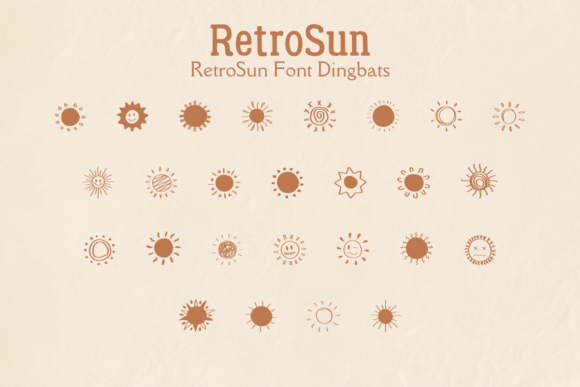
Introducing the dazzling Retro Sun Font, a symphony of nostalgic charm and playful whimsy! This captivating dingbat font will illuminate your creations with its radiant presence. With its playful glyphs, Retro Sun conjures memories of sun-drenched summer days, evoking a sense of joy and adventure.
Crafted by the skilled hand of Sakti Avellin, Retro Sun is a font that speaks to the heart. Its upper and lowercase glyphs dance and twirl, inviting you to add a touch of magic to your designs. Its versatility knows no bounds, making it the perfect companion for decorative accents, children's books, eye-catching stickers, and enchanting book covers.
Picture your words adorned with the golden warmth and playful spirit of Retro Sun. Its radiant glow will captivate readers, drawing them into your captivating tales. Whether you're designing a website, crafting a memorable logo, or adding a touch of whimsy to your social media posts, Retro Sun will illuminate your creations with its timeless appeal.
Unlock the power of Retro Sun today and let its playful charm ignite your imagination. Let your words shine brighter than ever before, leaving an unforgettable impression on all who encounter them. Embrace the magic of Retro Sun and unleash the full potential of your designs!